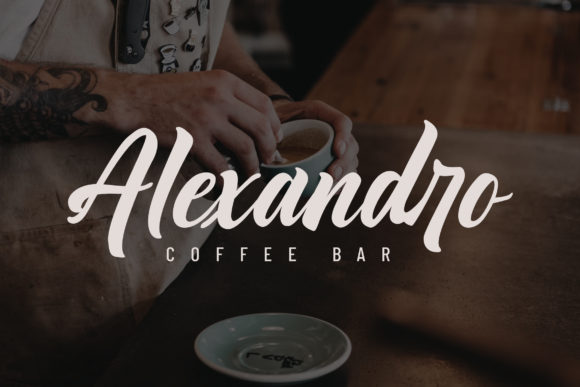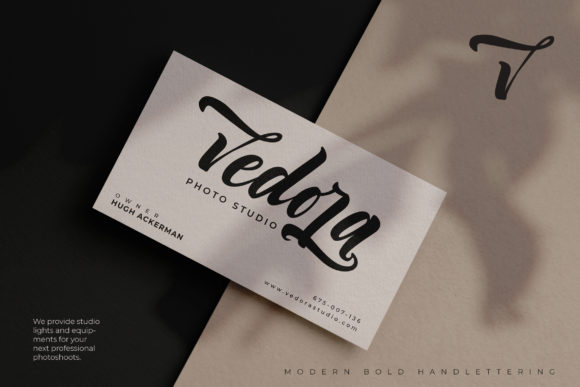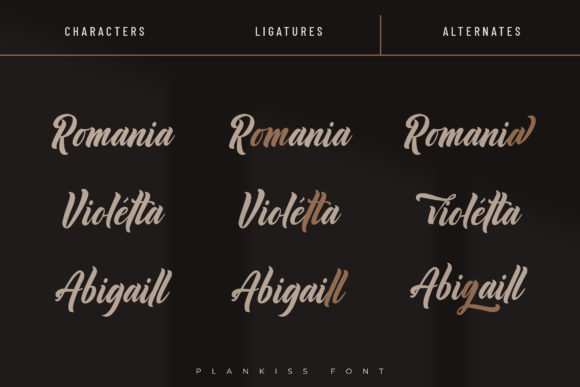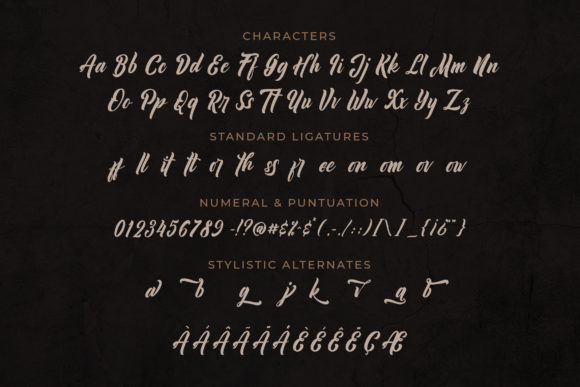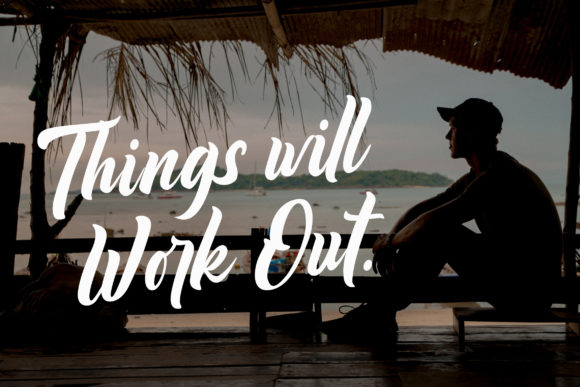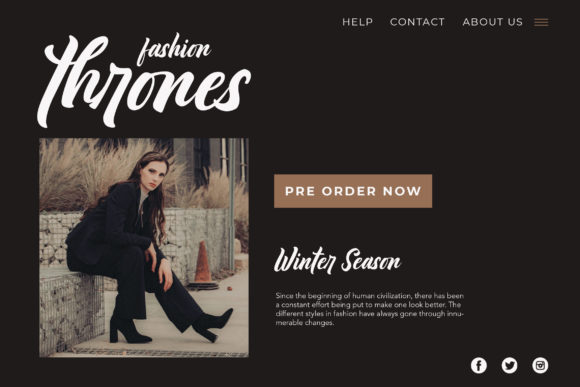
Plankiss Font
About Plankiss Font
Introducing “Plankiss” – a daring and cursive script font that exudes strength, confidence, and dynamism. This font adds a bold and nostalgic character to your designs, creating a captivating visual experience.
With its bold and daring nature, Plankiss commands attention and makes a statement. Each letter is meticulously crafted with dynamic strokes, creating a sense of movement and energy. Whether used in headlines, logos, or any other design element, Plankiss adds a strong and confident presence.
The cursive nature of Plankiss adds a touch of elegance and fluidity to your designs. Its flowing letterforms create a harmonious rhythm that adds a sense of grace and style. The script style of this font brings a nostalgic charm, evoking memories of vintage handwriting and adding a timeless appeal to your projects.
Plankiss is versatile and adaptable, allowing it to enhance a wide range of design concepts. Whether you’re creating retro-inspired posters, adding a touch of personality to branding materials, or even designing eye-catching social media graphics, Plankiss injects your designs with character and charm.
The bold and dynamic nature of Plankiss makes it ideal for projects that require a strong visual impact. It captures attention and draws the viewer in, making it perfect for headlines, titles, and any other element that needs to stand out.
In conclusion, Plankiss is a daring and cursive script font that brings strength, confidence, and nostalgia to your designs. Its strong and dynamic nature adds character and energy, while the cursive script style adds elegance and a touch of vintage appeal. Embrace the boldness of Plankiss and let it infuse your designs with its confident and captivating presence.